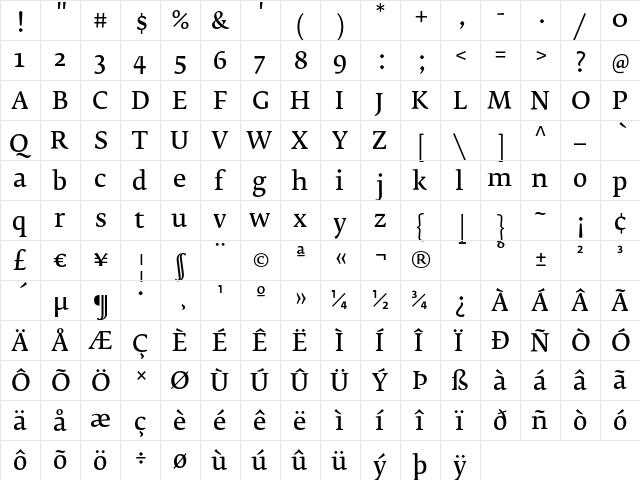
Fedra Serif B Normal
Design Context for Fedra Serif B Typeface
Fedra Serif B carries the refined structure of traditional serif typography, with bracketed terminals and considered proportions that communicate credibility and craft.
Pro Tip: Use Fedra Serif B for editorial body copy and considered headline work. Pair with a neutral sans for UI elements or captions to create a classic hierarchy.